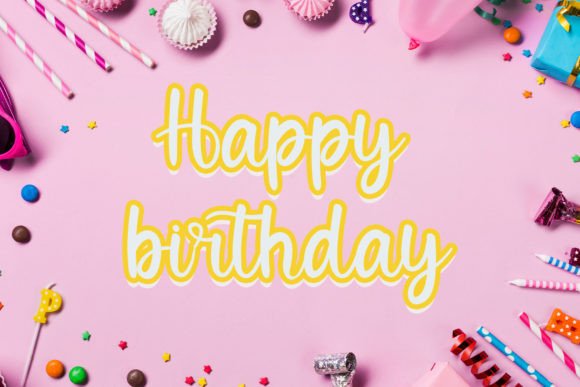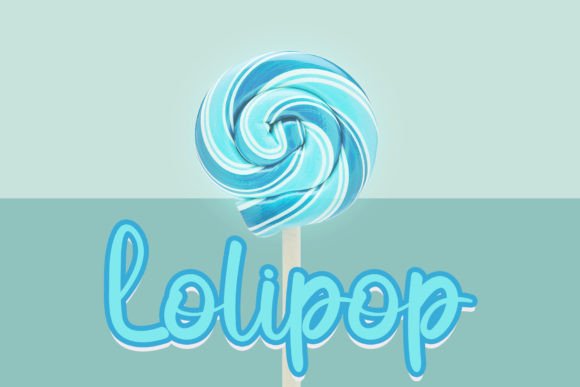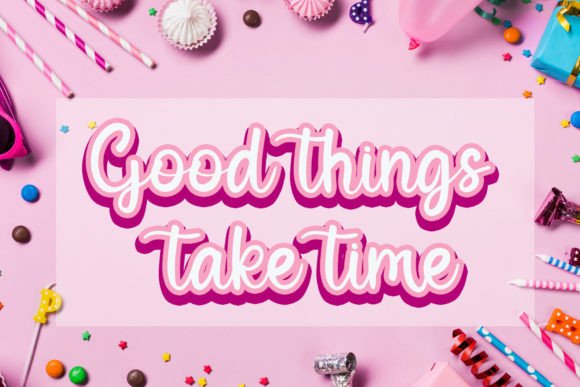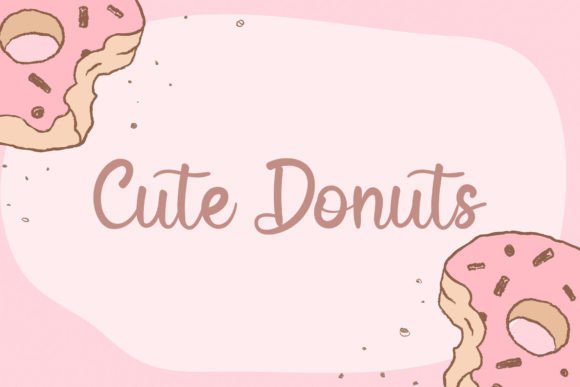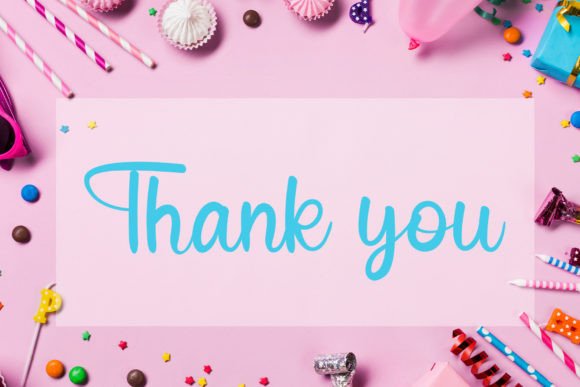
The Sweet Spot: Discovering the Charm of Candyland Font
I’ll never forget the time I was working on a project for a client who wanted a custom invitation for their daughter’s birthday party. The theme was a classic fairy tale, and I was determined to create something that would transport the guests to a magical world. As I scrolled through font after font, I couldn’t help but feel like something was missing. That was when I stumbled upon Candyland Font, and it was love at first sight! ✨
A Delicate Handwritten Font for Unique Designs
Candyland Font is a beautiful, delicate handwritten font that’s carefully crafted to add a touch of whimsy and fun to any design. With its elegant and cursive style, it’s perfect for writing letters, invitations, food products, titles, and more. Whether you’re a designer, crafter, or creative hobbyist, this font is sure to become a favorite in your collection.
- ✨ Elegant and cursive style that’s perfect for formal and informal designs
- 💕 Beautifully crafted to add a touch of whimsy and fun to any design
While Candyland Font is an amazing addition to any design, there are a few things to keep in mind. ⚠️ Some users have reported issues with kerning, particularly when using the font at larger sizes. Additionally, the font may not work well with certain languages or non-English characters. 🤔
The Story Behind Candyland Font
Candyland Font was designed by a team of creative typographers who wanted to create a font that would evoke the magic and wonder of childhood. Inspired by the classic board game, they carefully crafted a font that’s both elegant and whimsical. The result is a font that’s perfect for adding a touch of fun and personality to any design.
Q: What type of designs is Candyland Font best suited for?
A: Candyland Font is perfect for a variety of designs, including invitations, titles, headings, and short paragraphs. It’s also great for food products, party decorations, and more.
Q: Is Candyland Font available in different languages?
A: Candyland Font may not be available in all languages, particularly those with non-English characters. Be sure to check the font’s character set before using it for a specific project.